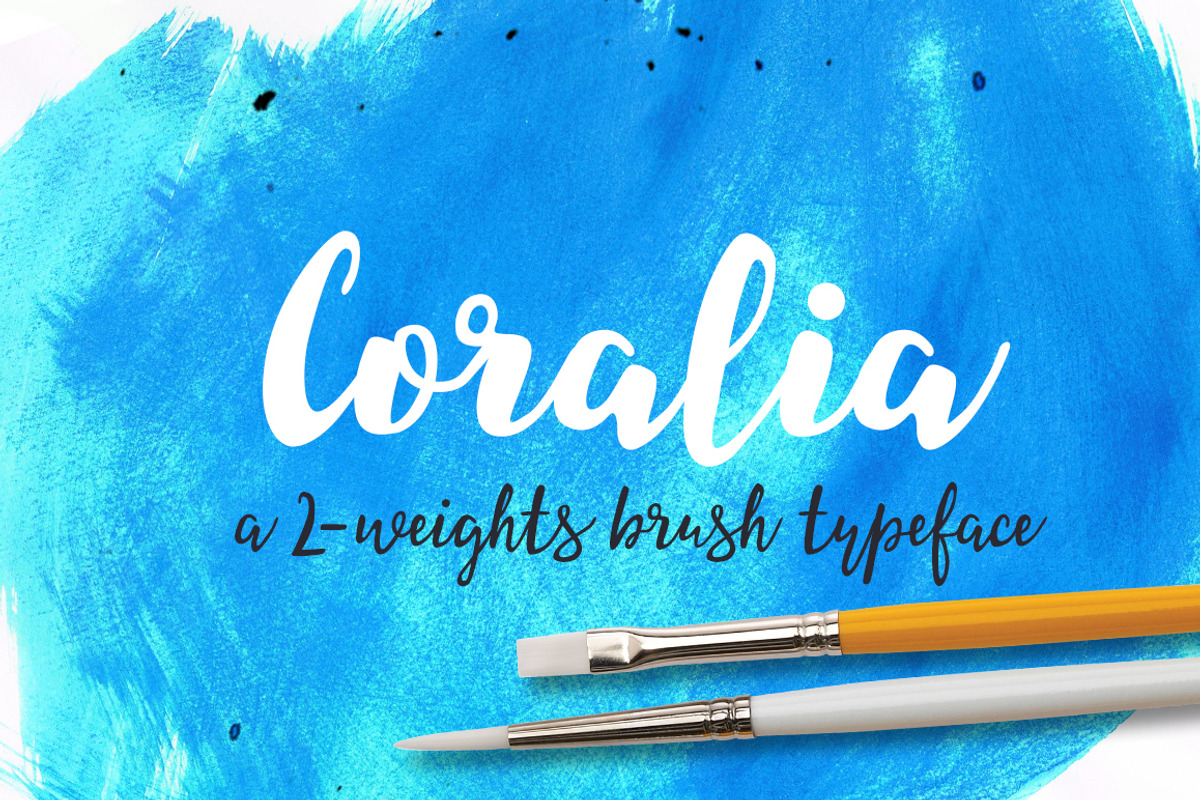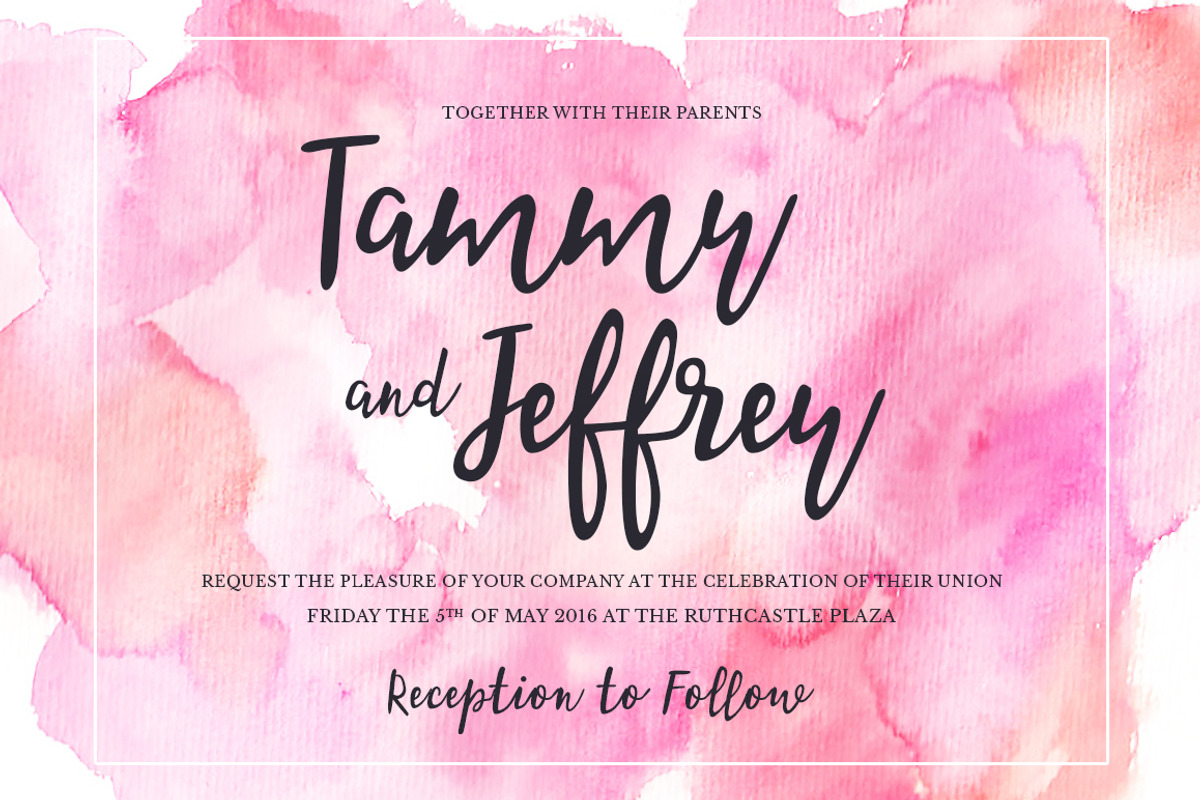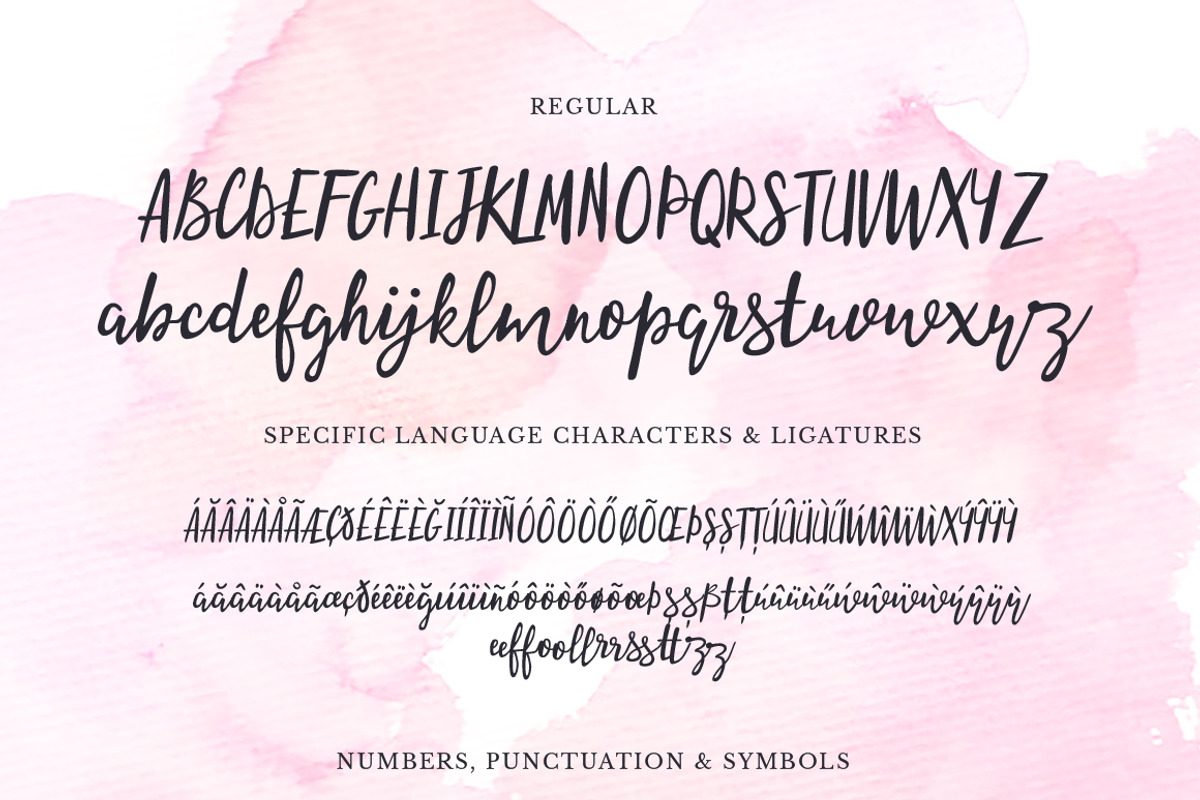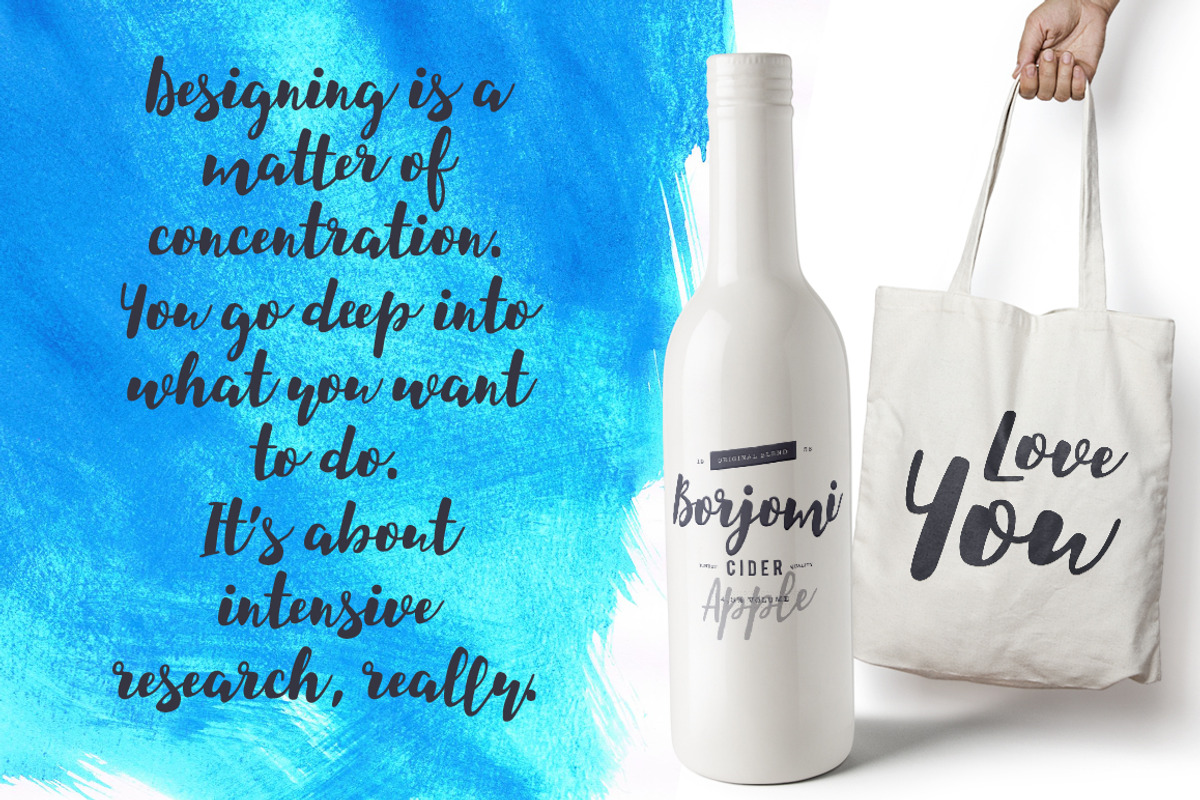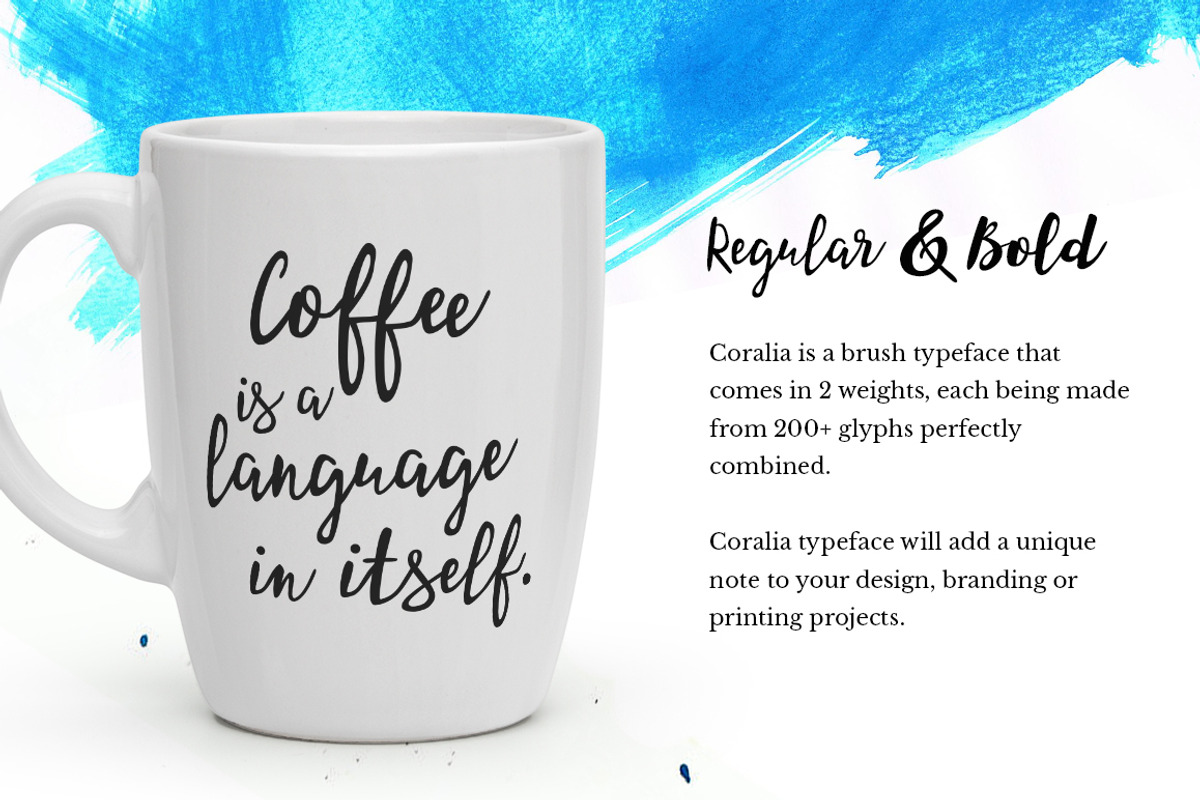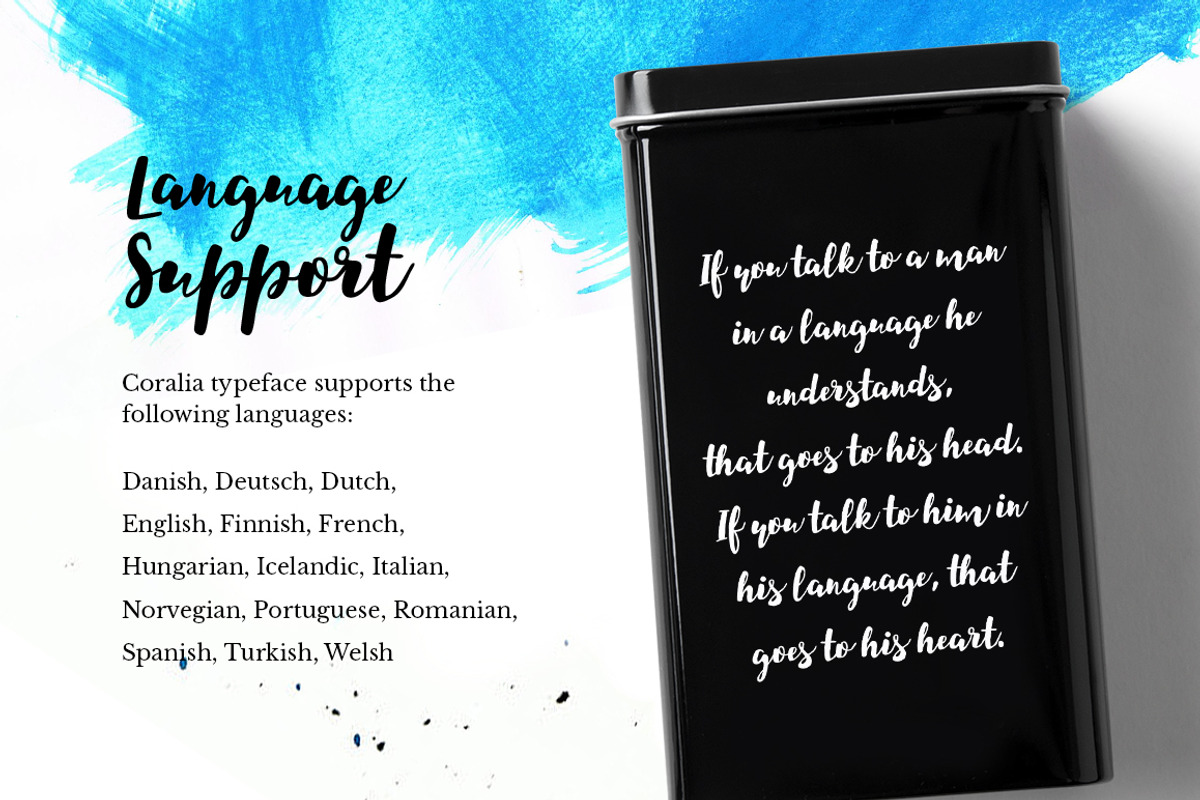
Coralia - a 2-weights brush typeface
Coralia - a 2-weights brush typeface by VladCristea is a font selected for branding, posters, packaging, typography.
- Coralia Regular
- Coralia Bold
Why Coralia - a 2-weights brush typeface is worth a look
Coralia - a 2-weights brush typeface by VladCristea fits naturally into Branding, posters, packaging, typography.